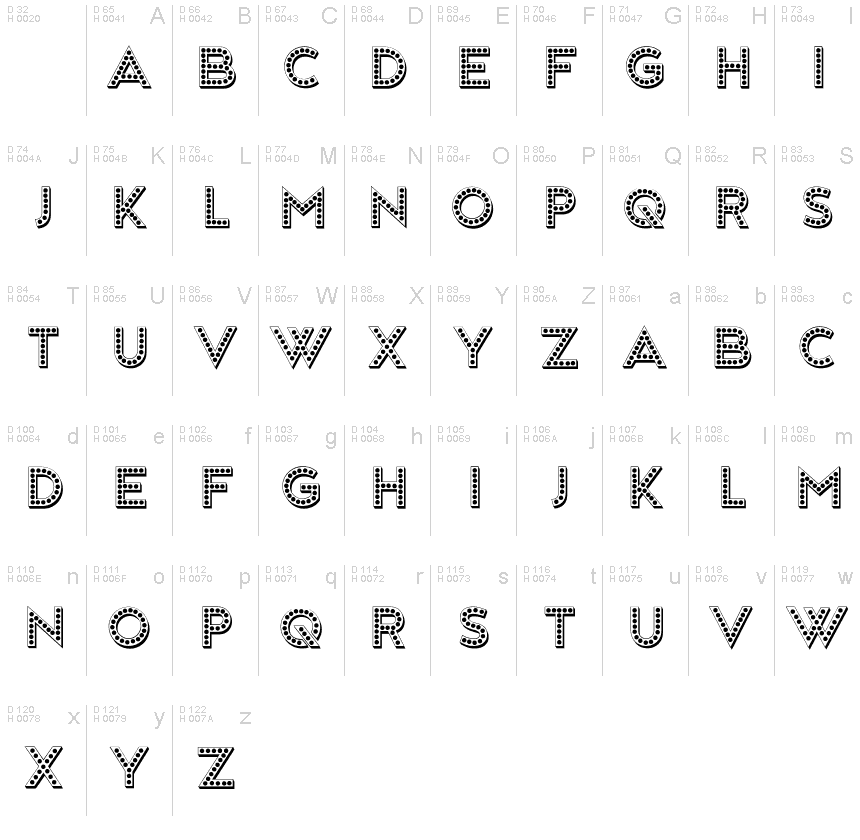
La Cocotte Regular
La Cocotte, the charming display font created by Vladimir Nikolic, is here to add a touch of whimsy to your design projects. Its decorative style and playful curves make it perfect for anything from food packaging to children's books. The semi-bold font width adds just the right amount of weight, making it legible even at smaller sizes. Whether you're creating a logo or designing a poster, La Cocotte is sure to bring some personality and flair to your work. So go ahead and let your imagination run wild with this delightful typeface!